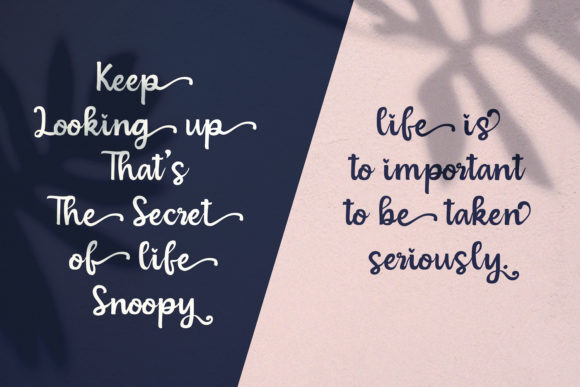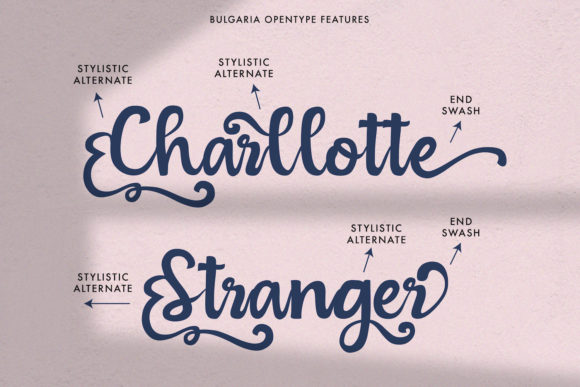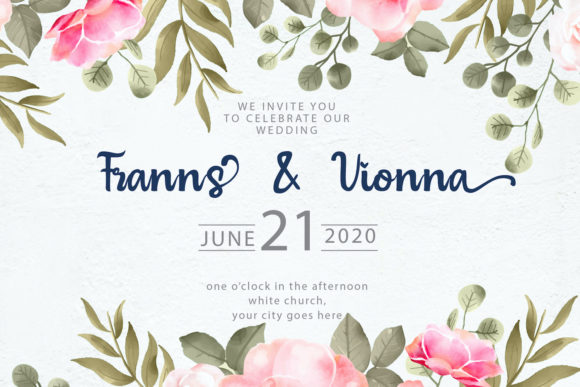
Introduction to Bulgaria Font
Bulgaria is a cute and casual handwritten font with an incredibly friendly feel.
Its casual charm makes it appear wonderfully down-to-earth, readable and, ultimately, incredibly versatile Bulgaria will look outstanding in any context, whether it’s being used on busy backgrounds or as a standalone headline.